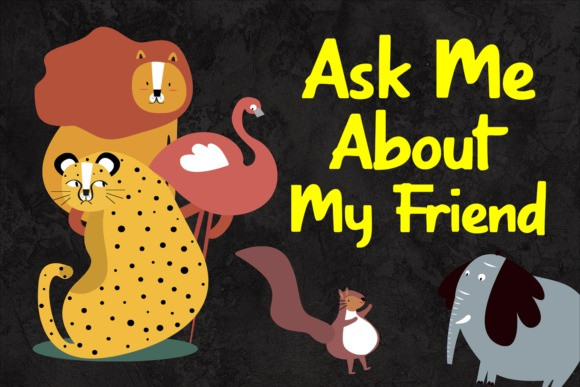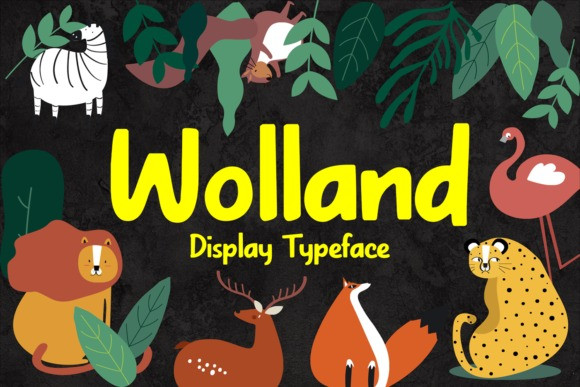
Wolland Display Font
Wolland is a cute and casual display font with an incredibly friendly feel. This font will look outstanding in any context, whether it’s being used on busy backgrounds or as a standalone headline!